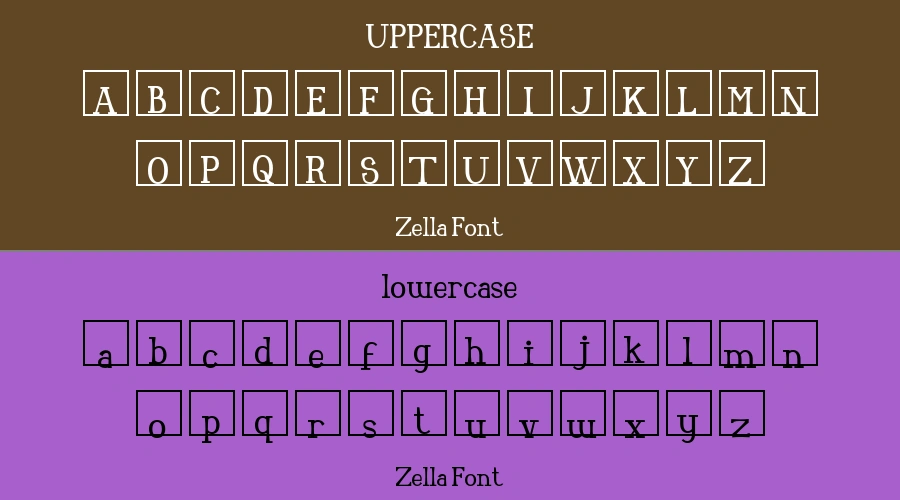
About Zella Font
When typographic excellence matters most, Zella Font delivers through its thoughtful blend of bracketed serifs and refinement. Specially crafted for poster titles, it offers the functionality and consumer connection required for sophisticated design work. Every detail serves a purpose.
The character set showcases thoughtful details like expressive energy alongside functional numerator/denominator. This proves especially valuable in brand logos, where small cap rendering directly influences results. Particular attention was paid to stroke contrast and character during development.